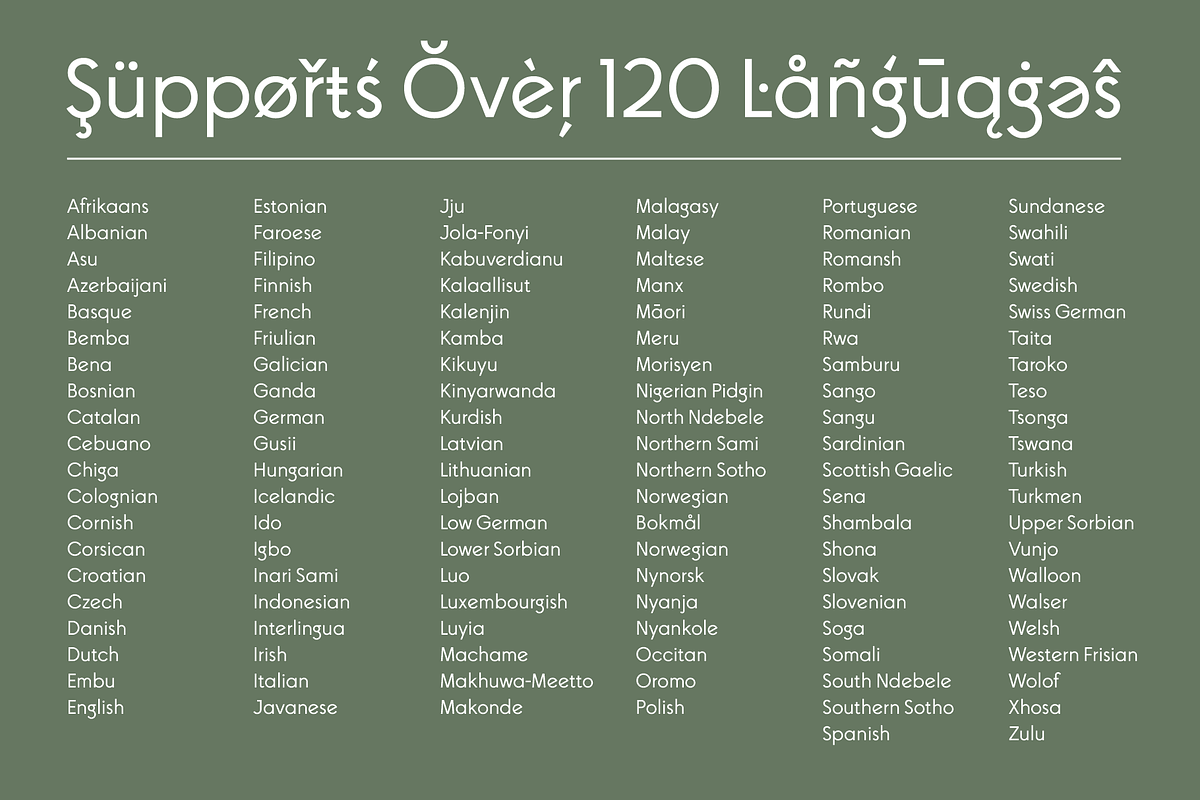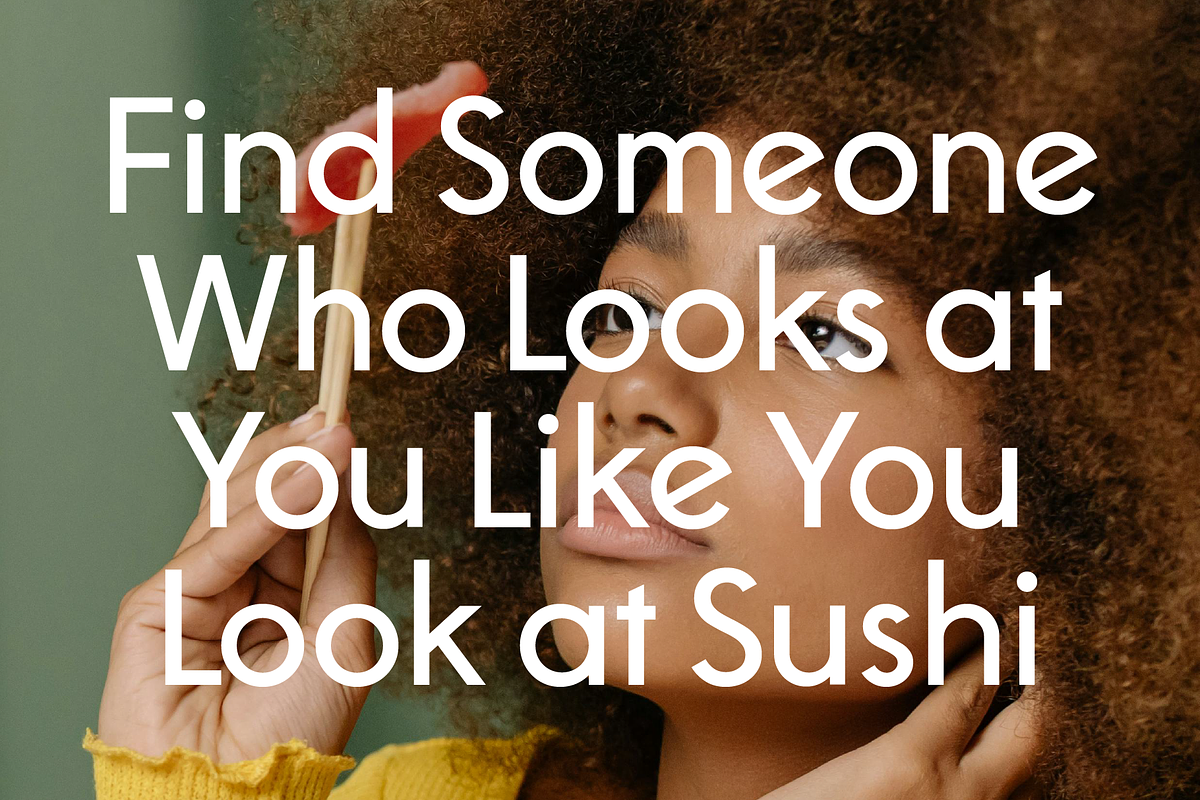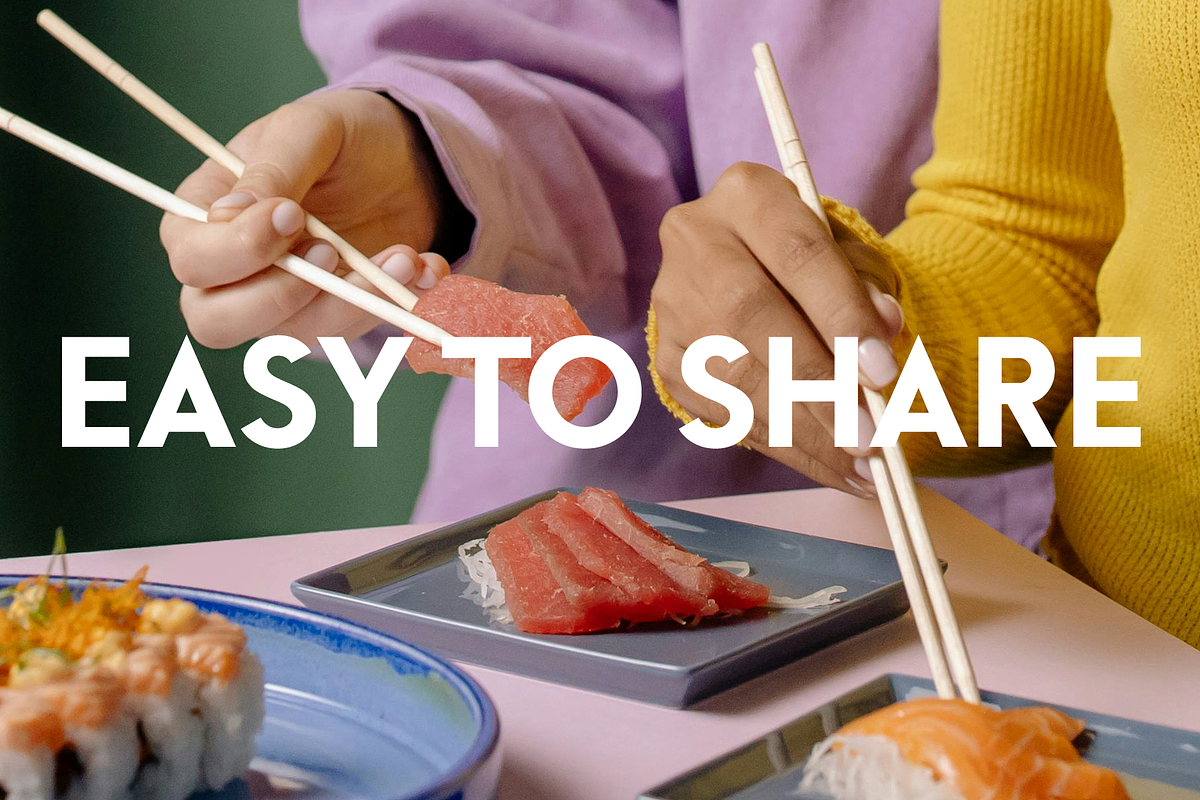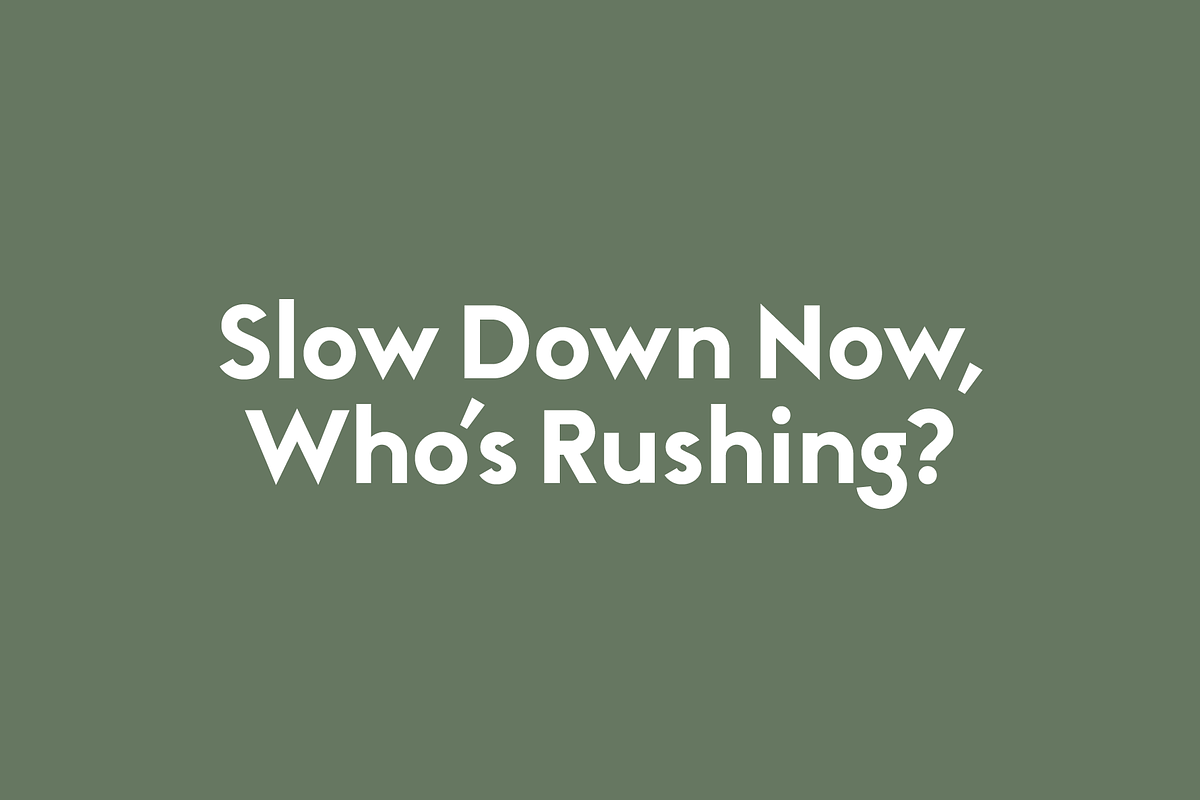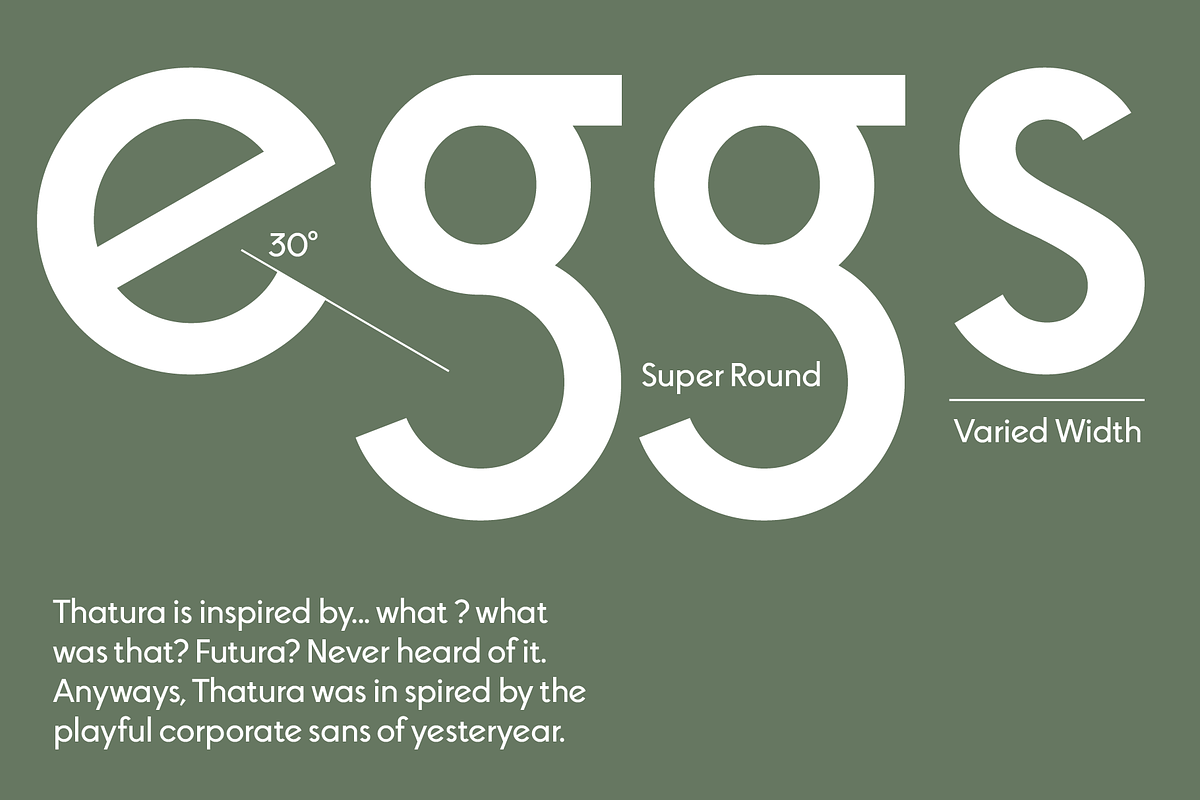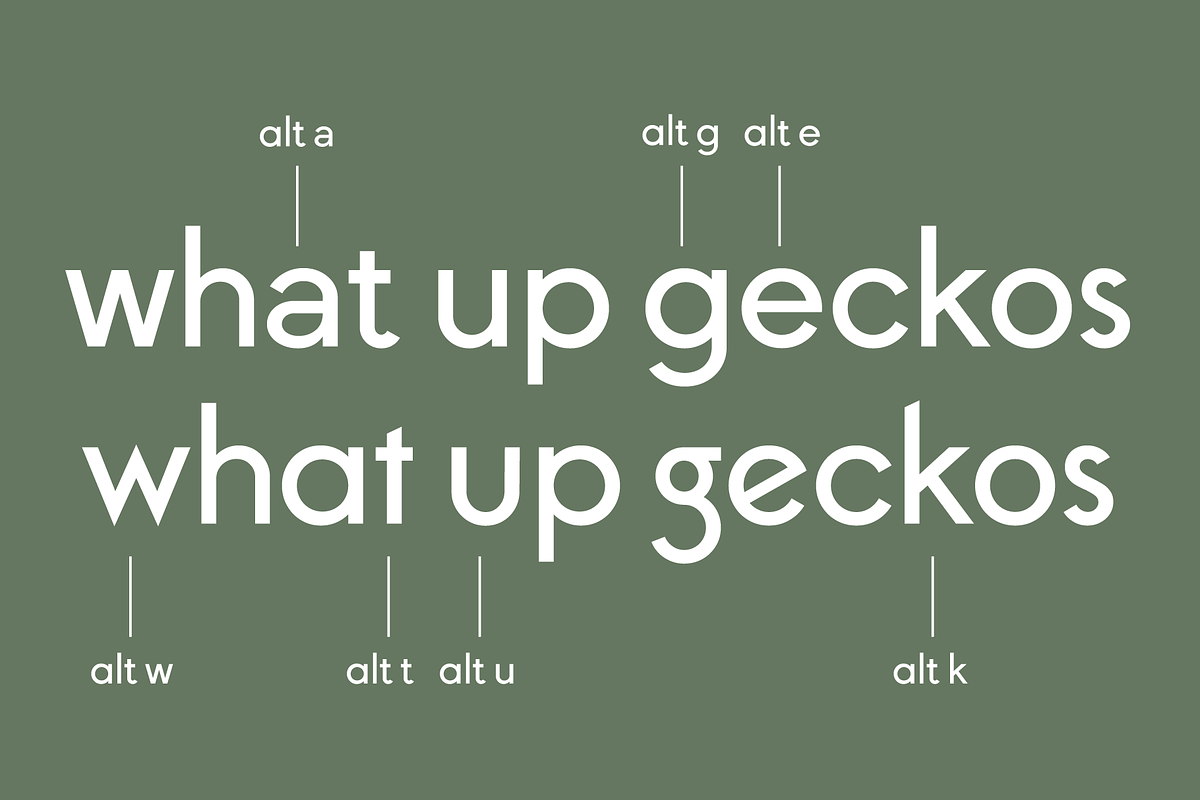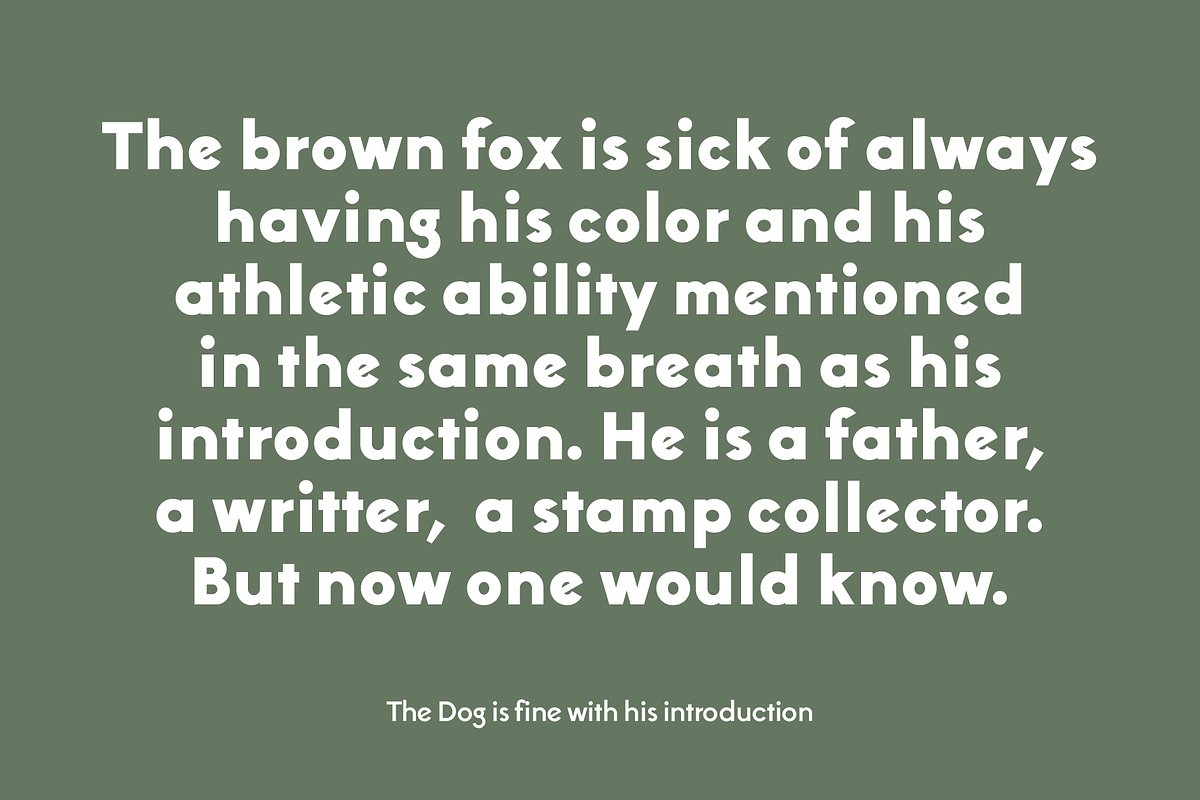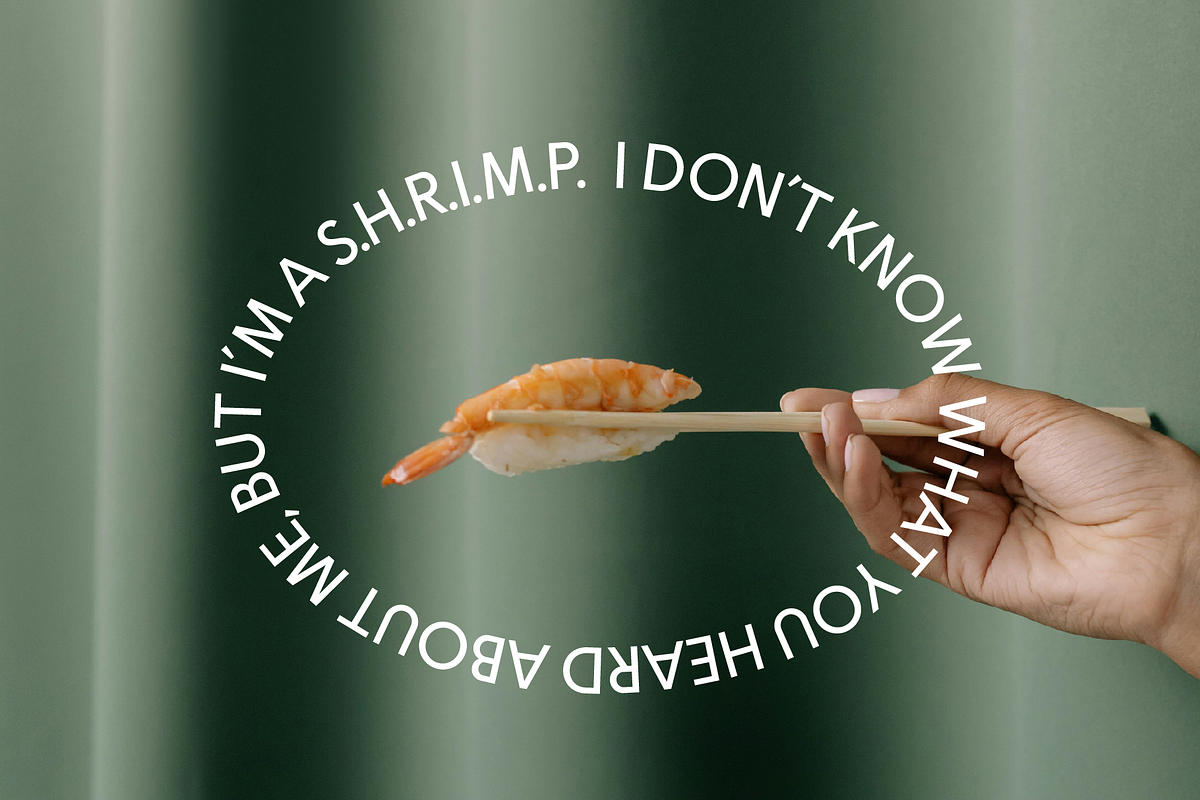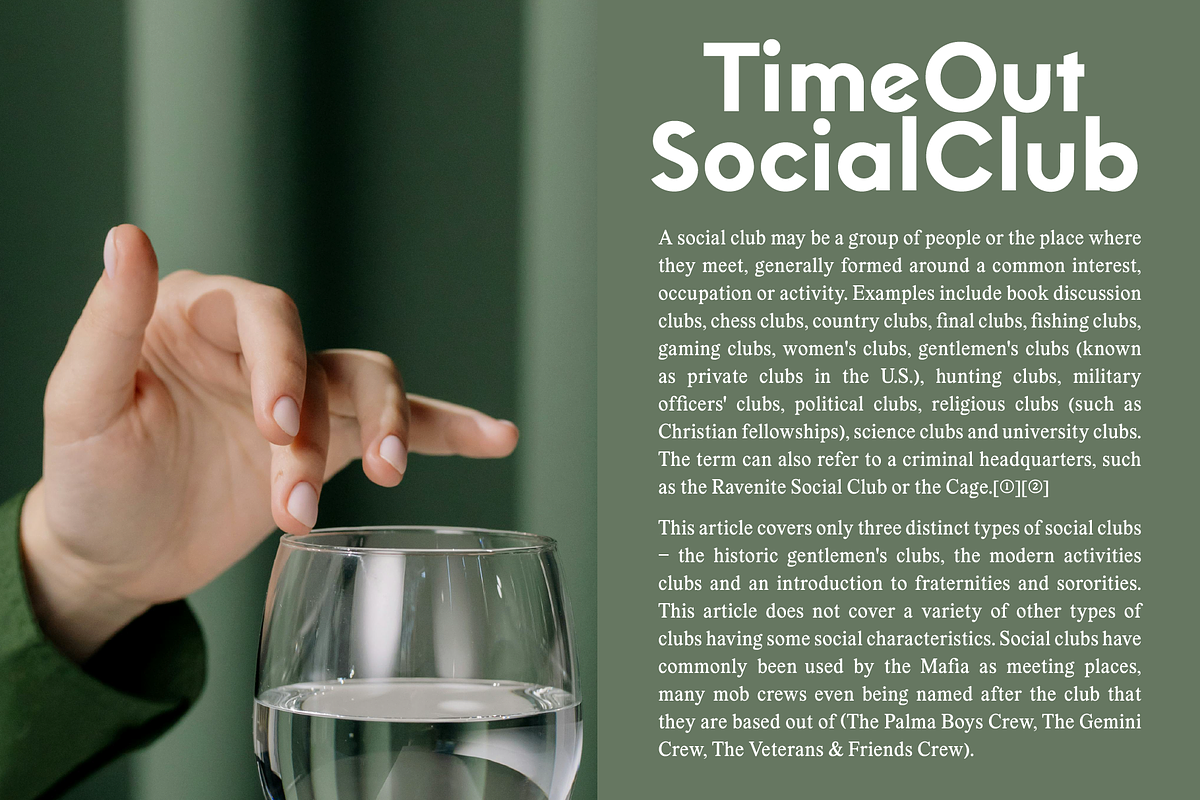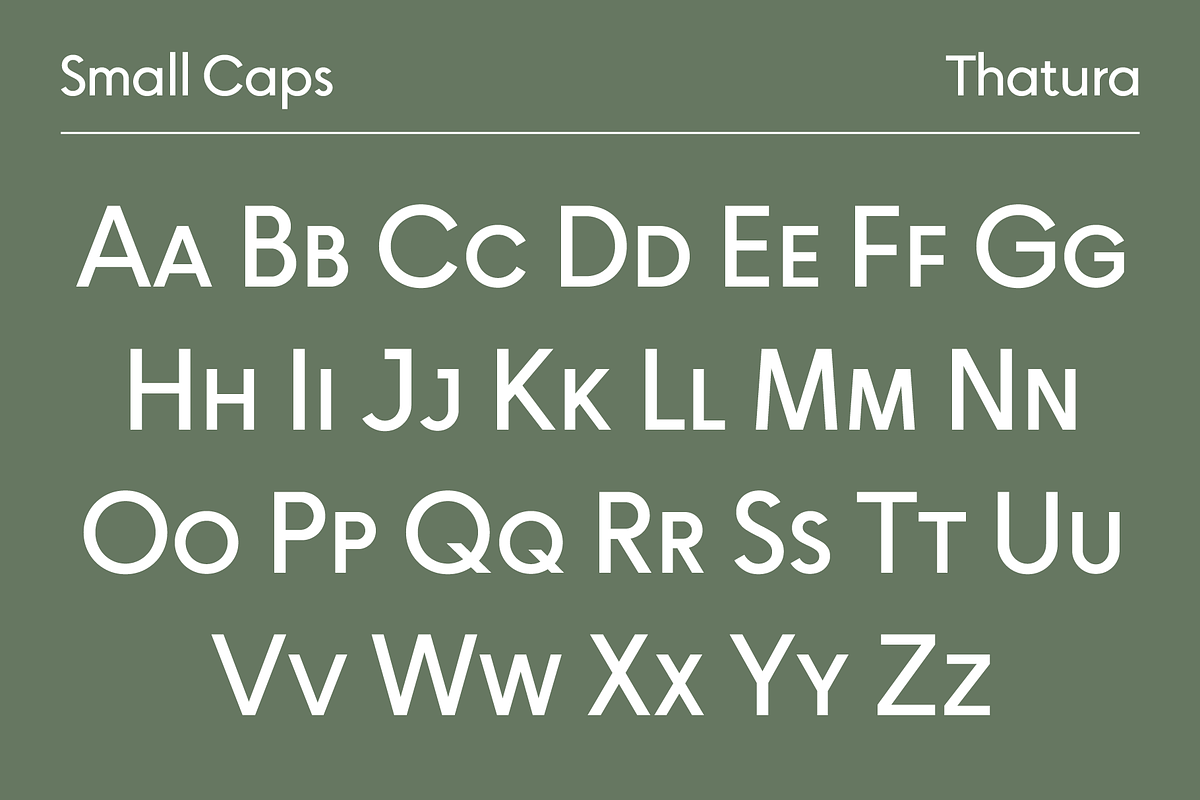
Thatura Geometric Sans Font
Thatura is a geometric sans family that is inspired by some font I saw once but can’t remember its name… but That’s not important. Thatura is kinda like that font but with a little more quirk to it and a load more customization options. From sharp corners and ascenders to off axis “e”s and super playful ”g”s. You can pump up the fun factor or dial it back to a more tame feel depending on what you need.
Font Includes
- Variable Weight axis
- 5 Set weights
- Alternative “a” Style Set
- Alternative “e” Style Set
- Alternative “g” Style Set
- Alternative “t” Style Set
- Alternative “u” Style Set
- Sharp Corners Style Set
- Sharp Ascender Style Set
- Small caps
- Small numbers ( like suscripts and fractions and all that stuff )
- Case sensitive punctuation
- Latin 3 Language Support